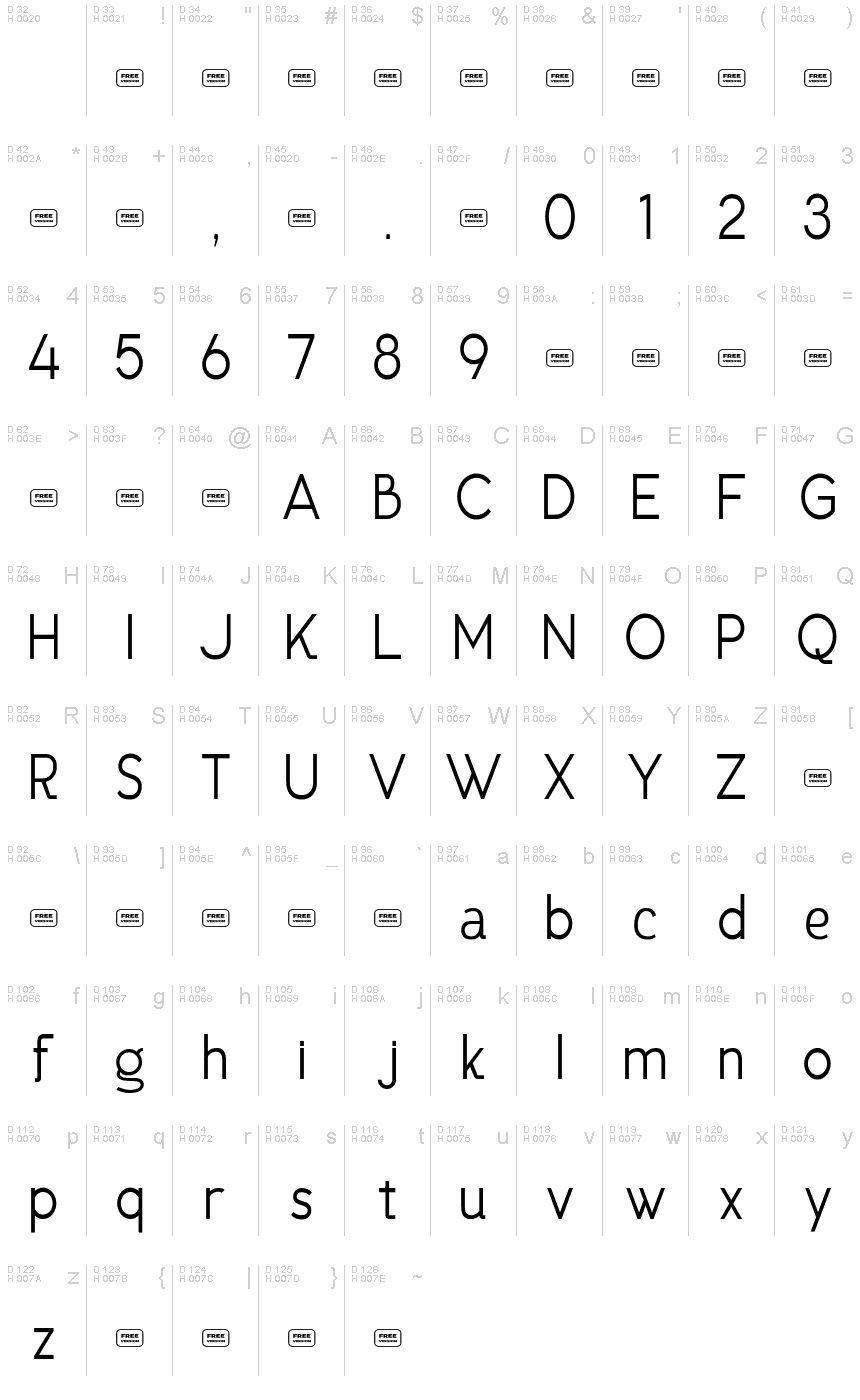
Alochovey, crafted by the innovative minds at Typefactoryco, stands out as a semi-light sans serif font with a contemporary twist. Its modern display characteristics embody sophistication with just enough flair to capture attention without overwhelming the viewer. The elegant yet understated weight of Alochovey lends itself to a wide range of creative projects, from branding and editorial designs to digital interfaces that demand legibility coupled with style.
The sleek lines and open forms of this font ensure excellent readability while its subtle quirks in letter shapes offer a distinctive personality. Ideal for designers looking to infuse their work with modernity and freshness, Alochovey is more than just type—it's an aesthetic statement that speaks volumes in simplicity. Whether deployed for logos, headlines, or text blocks, this font imbues your project with an aura of refined clarity that's sure to leave a lasting impression.